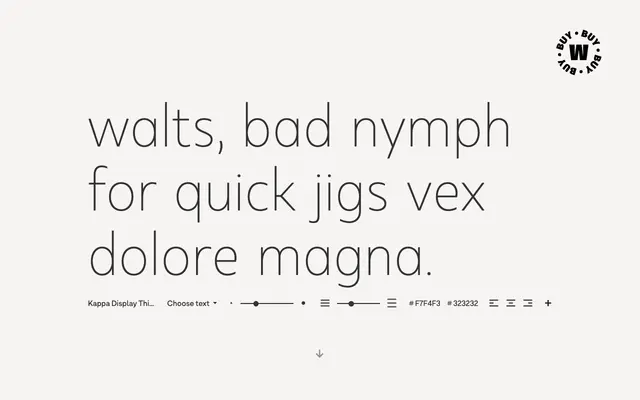
Kappa
W Type Foundry · Diego Aravena, Salvador Rodriguez
A slightly narrow modern sans serif in 36 styles across Display and Text subfamilies, designed with an extended weight range and broad OpenType feature support.
Designed by Diego Aravena and Salvador Rodriguez, Kappa runs from Thin to Ultrablack in both Display and Text optical cuts, each with corresponding italics. Its slightly condensed proportions and tall x-height aim to improve legibility at small sizes while fitting more text on the page. OpenType features include small caps, alternates, ligatures, fractions and extended language support across all weights.
Described by the foundry as a modern sans serif with both humanistic and geometric features, placing it in a hybrid humanist-geometric subcategory rather than a pure grotesque or geometric.